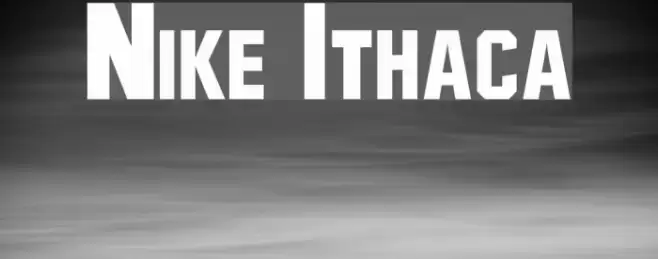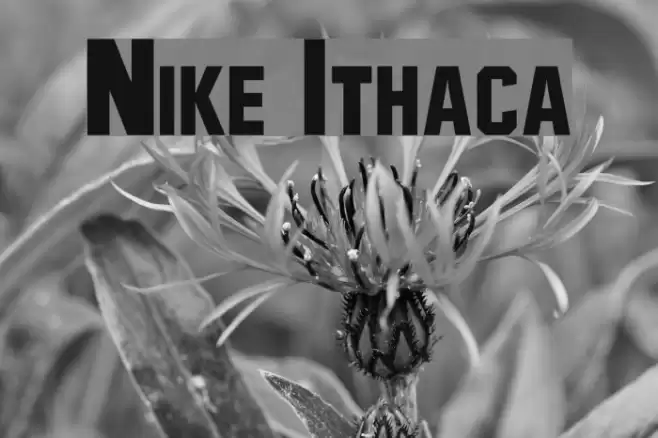
Nike Ithaca Font
Nike Ithaca Description
This font features a bold and impactful design with strong geometric shapes and a modern aesthetic. The uppercase letters are characterized by their block-like appearance, with sharp angles and a consistent stroke width that conveys strength and stability. The numbers follow the same design principles, ensuring uniformity across all characters. This typeface is ideal for creating a commanding presence in any design, making it suitable for headlines, logos, and branding materials. Its boldness and clarity ensure readability from a distance, while the geometric style adds a contemporary touch.
A bold, geometric font with strong, angular shapes ideal for impactful designs from Uncategorized fonts.
- Proposed Projects: Perfect for sports branding, posters, headlines, and logo design.